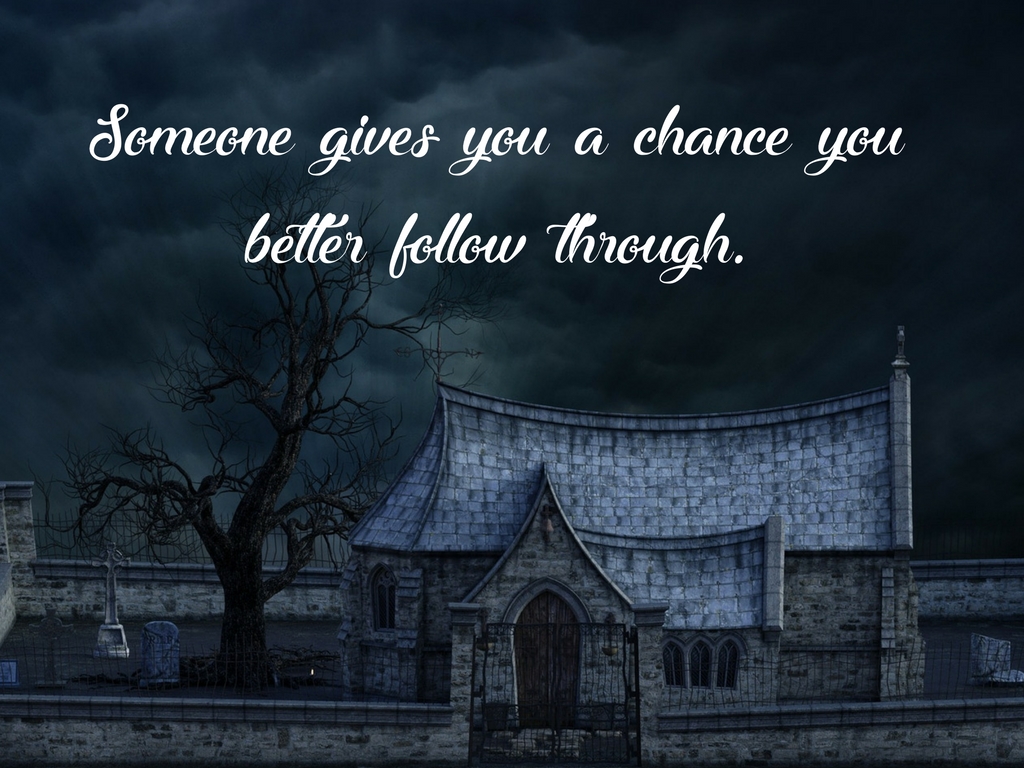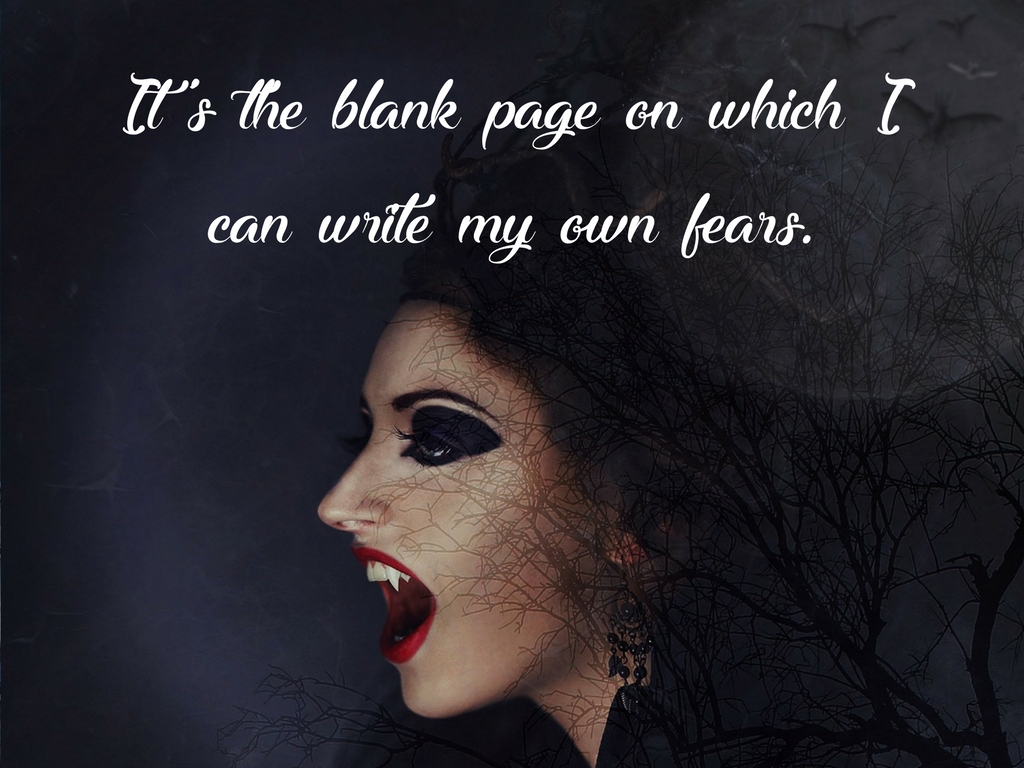
Midnight Valentine Font
Midnight Valentine Font is a romantic typeface that is quite similar to Leslie dawn font. and it is available on google fonts. It is one of the beautiful fonts of all time. With this font’s beneficial spacing and amazing device, that seems like bangers font you may without problem creates any designs of your desire on the way to provide gold-well-known terrific and legibility.
It is considered used for hundreds of applications in particular for signage and others rent alike. You may see that hundreds of top-notch elements that this font form can present and it has masses of font weights to be had as nicely. Midnight Valentine Font Free This font trouble an italic, hand-drawn, bold texture. Top-notch for any headline or titling talents.
This font is also seemed because of the wreath font for textual content. This font is a normal font with masses of many abilities and masses of font weights available to offer in truth lose internal this. Download This nfl steelers font in developing a photo, rate models, and in each particular designing perform in which covered in the rational advice. It has to come to be first released and it’s far been very known as a whole lot as within the intervening time.
It’s far just like artwork present-day extensively utilized by artists to many format layouts.